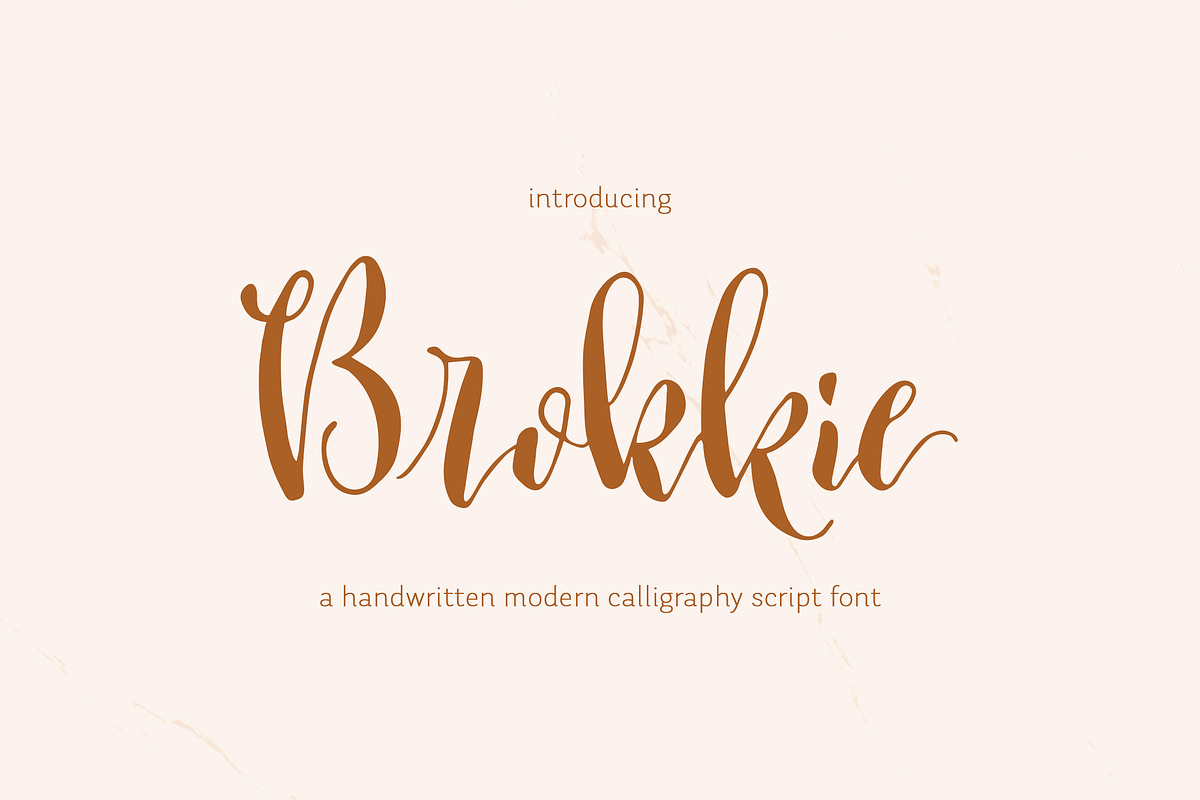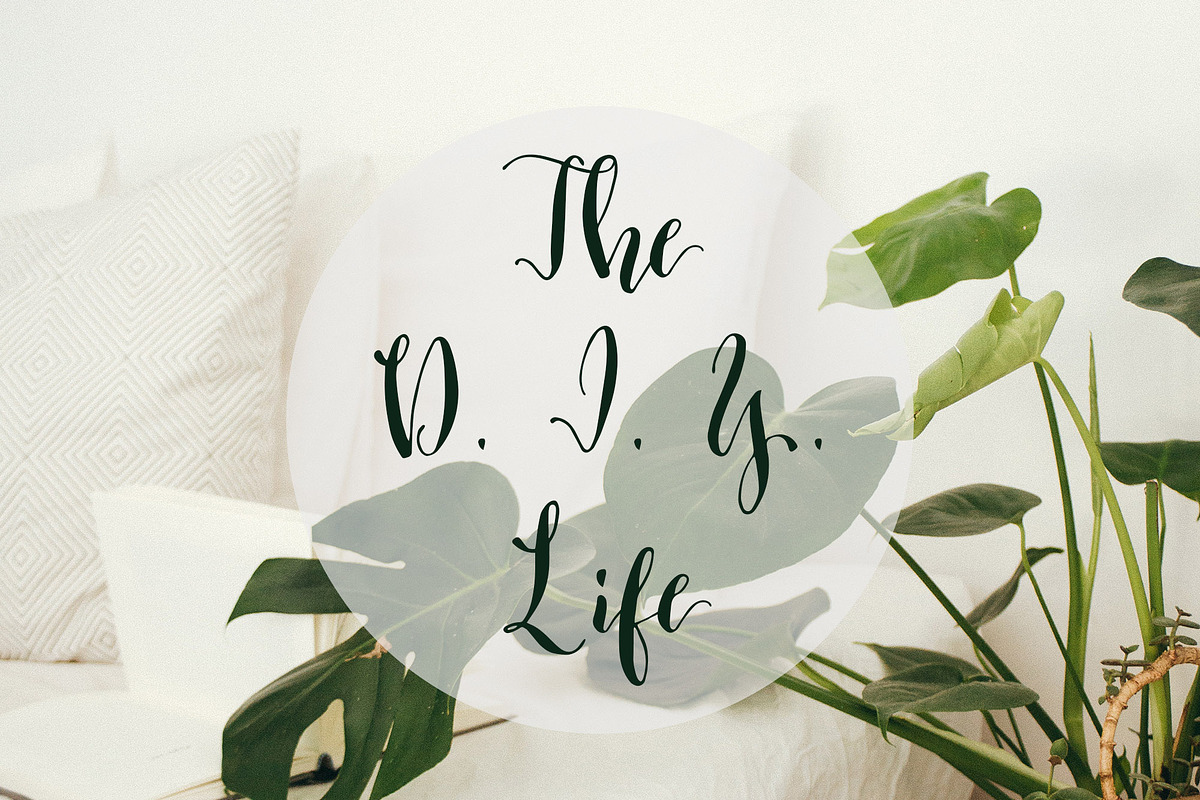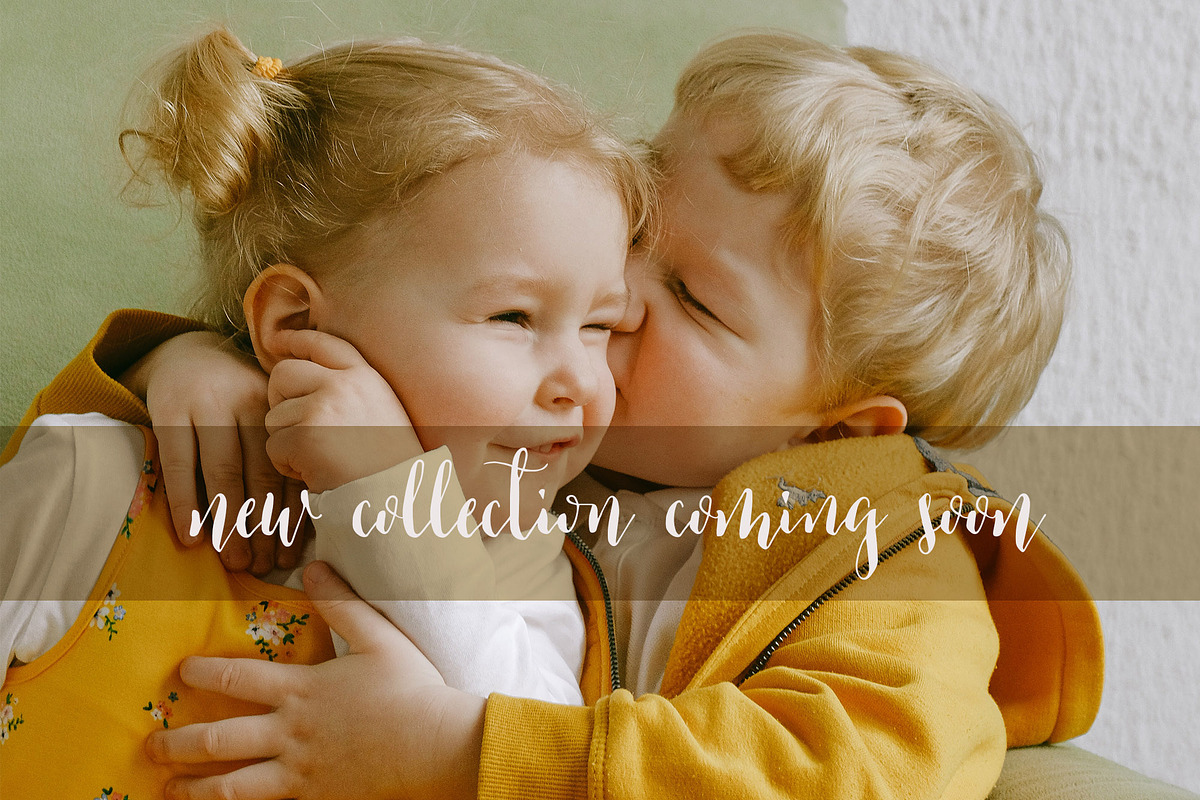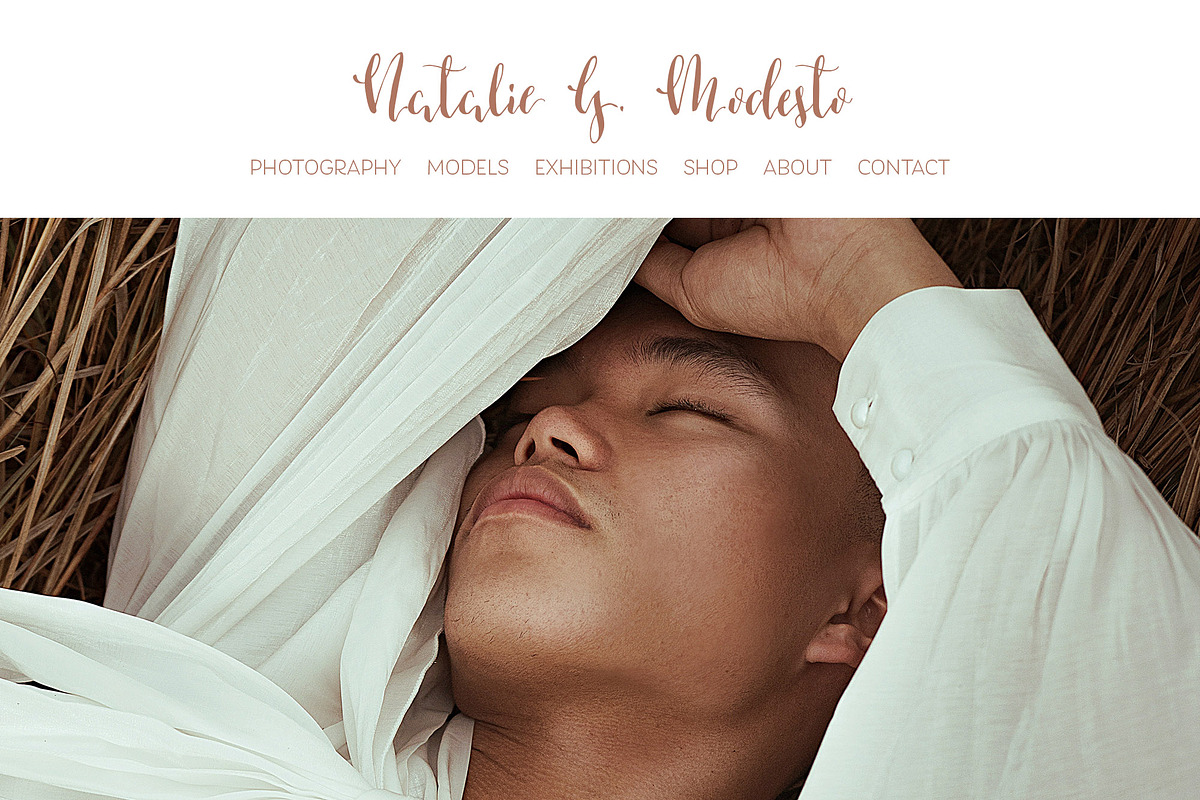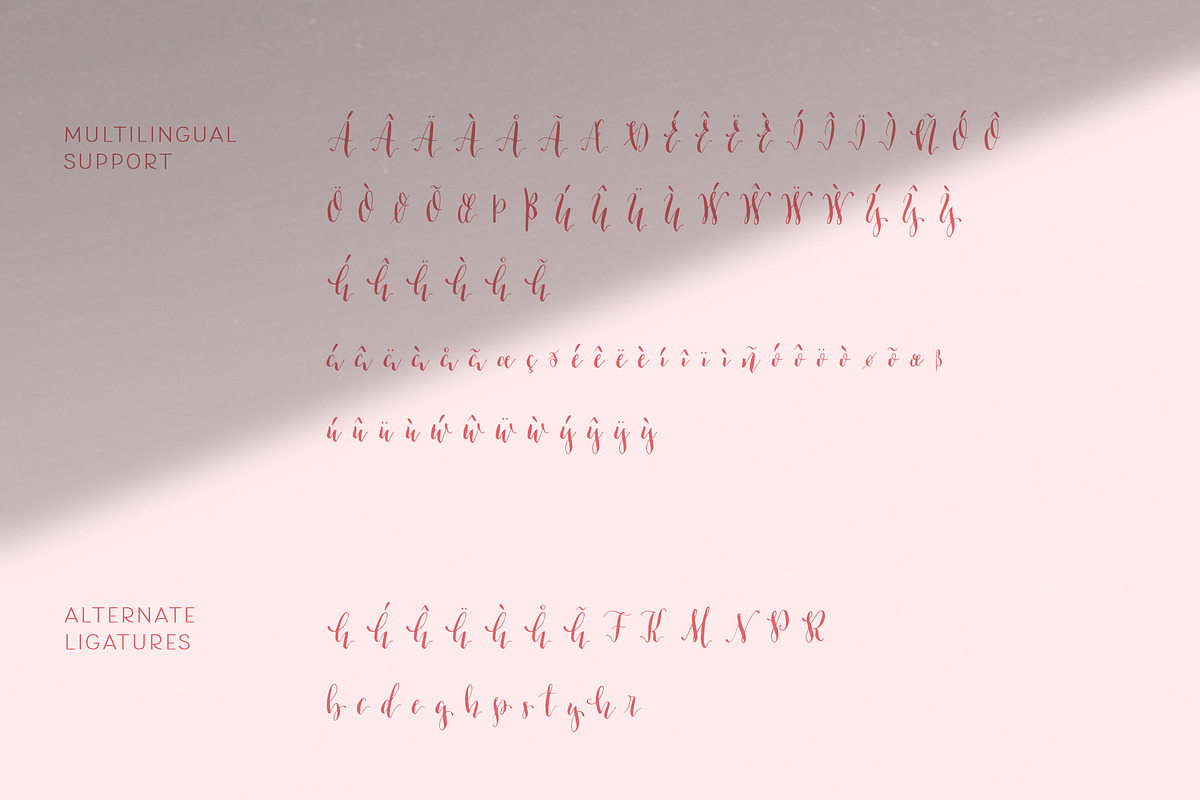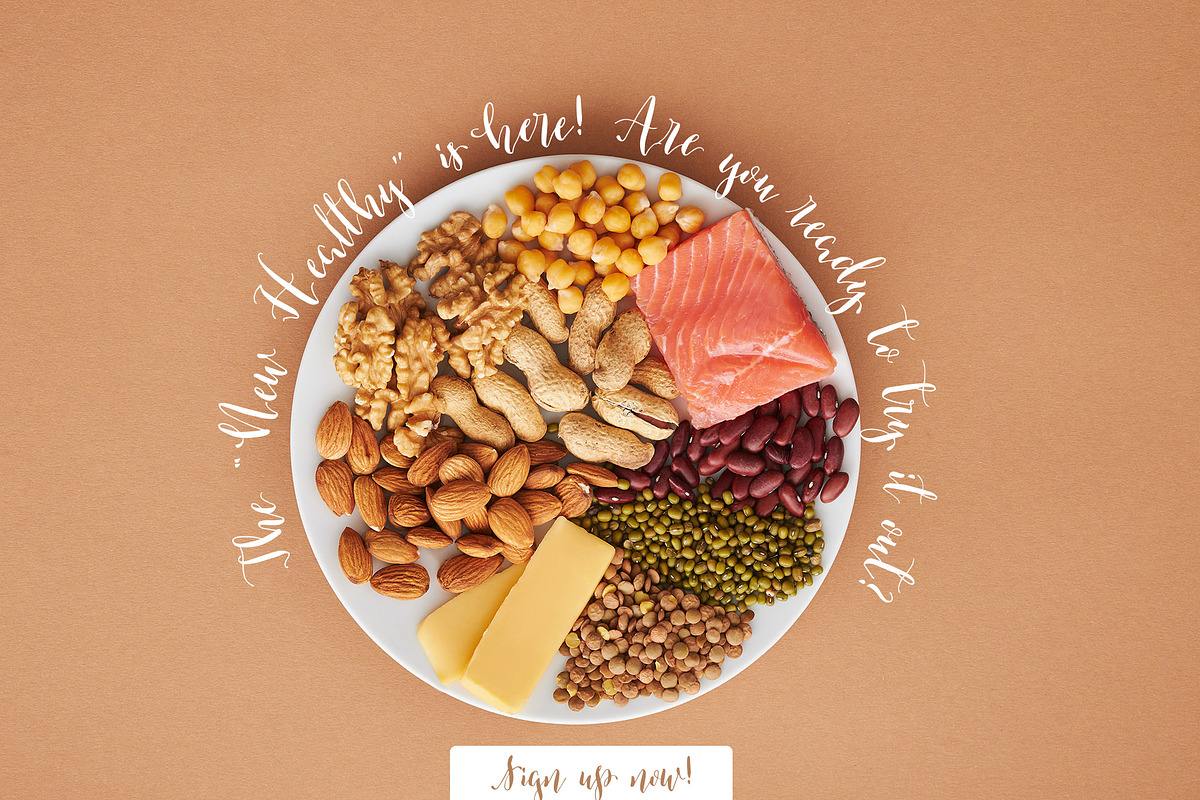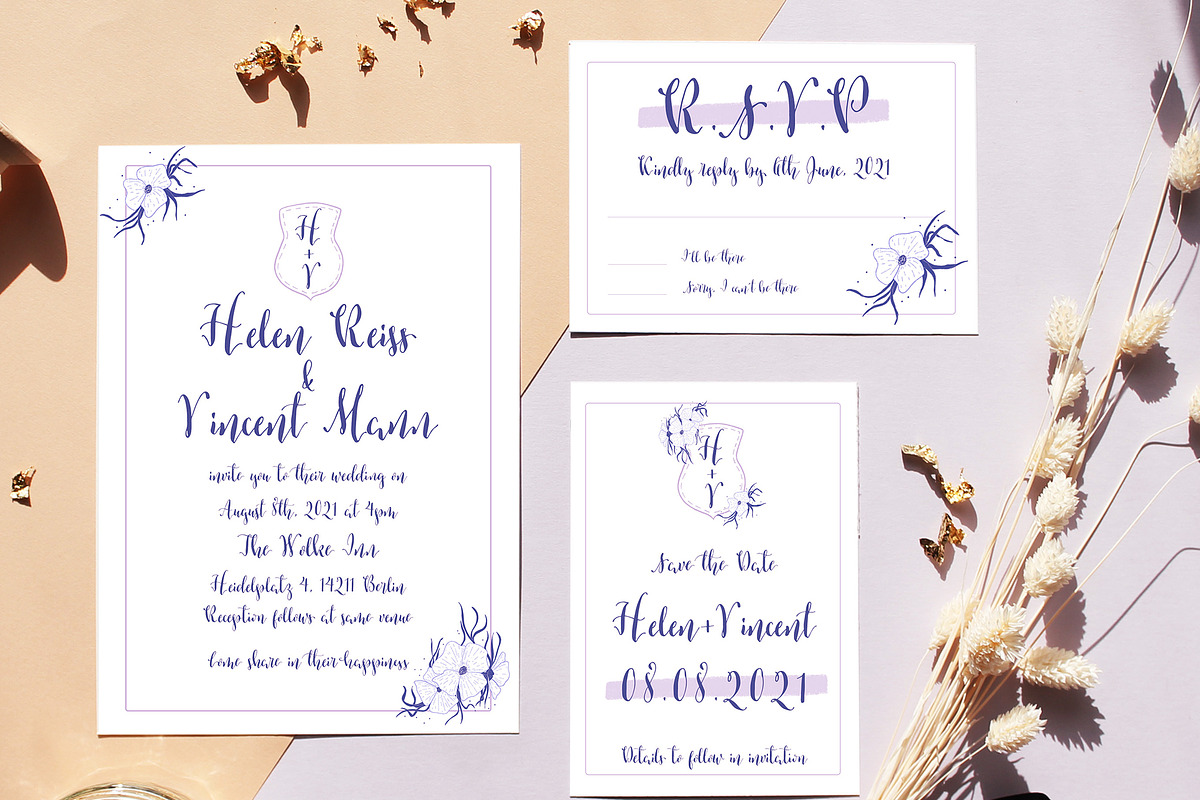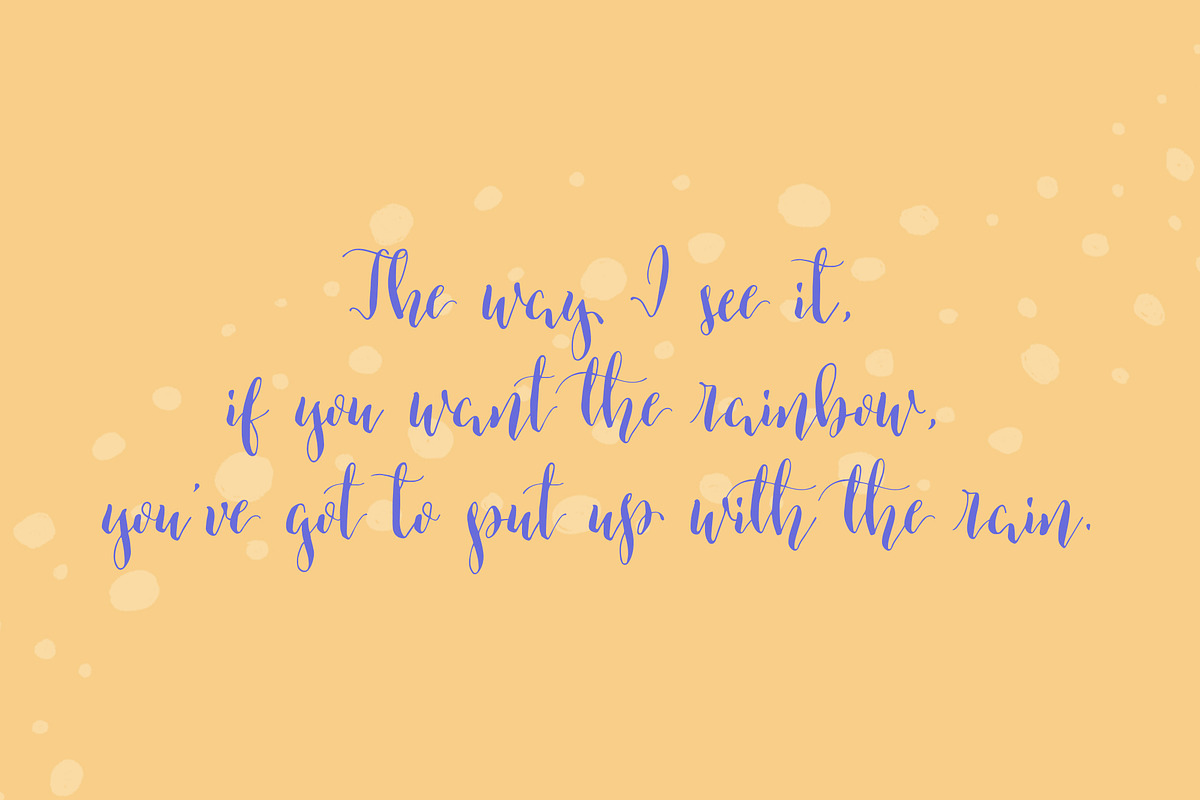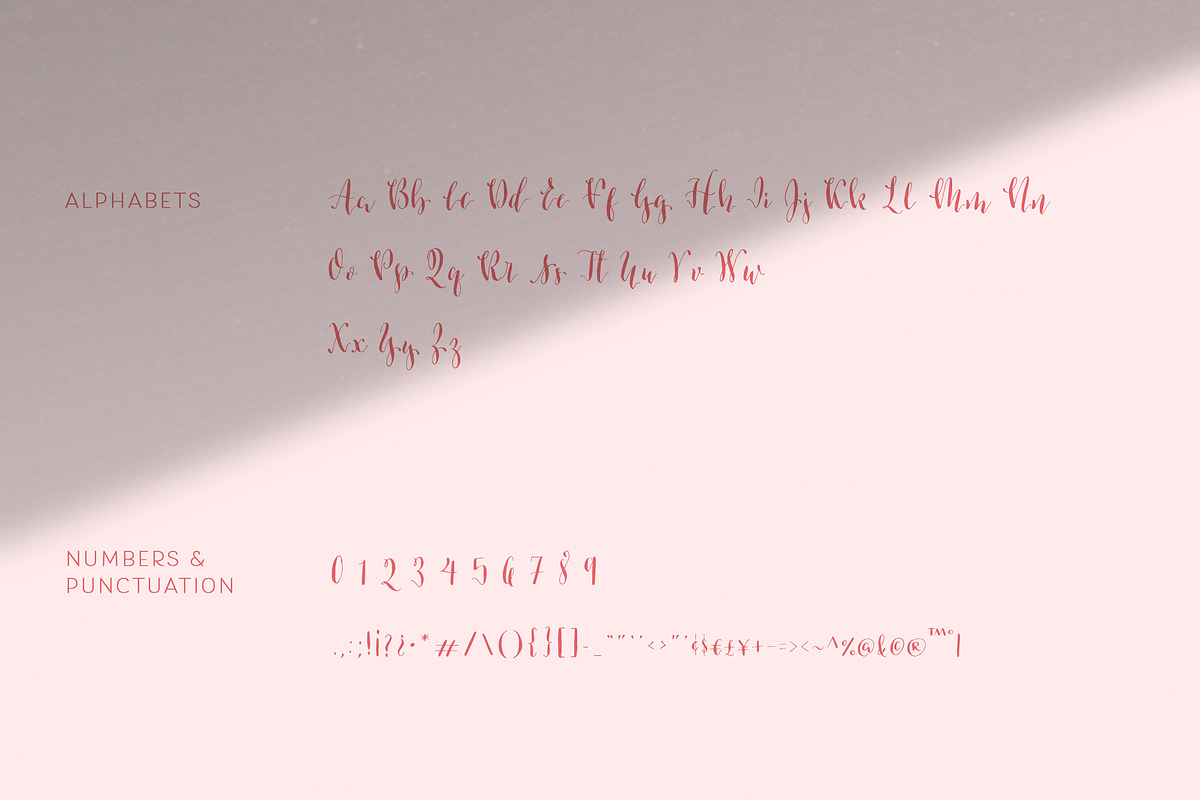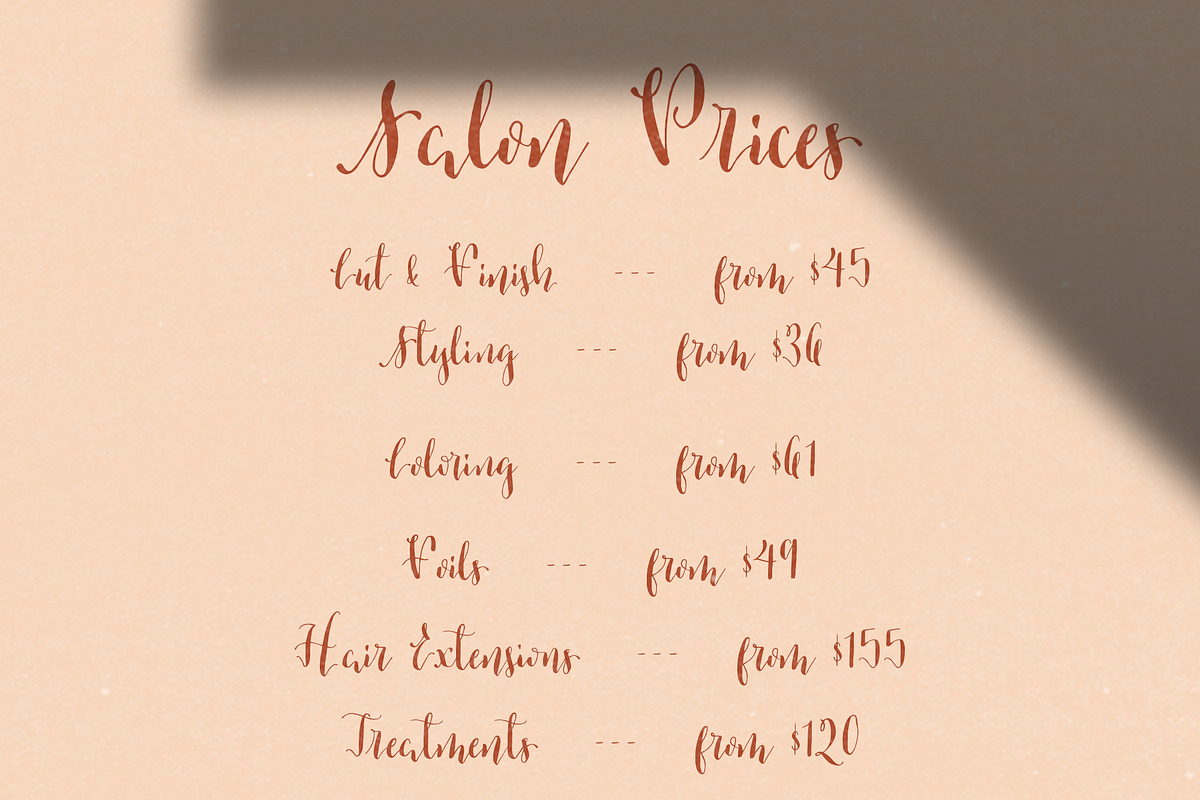
Brokkie | Modern Calligraphy Font
Brokkie is a handwritten calligraphy script font with a modern twist! This font adds a relatable and imperfect side to your designs; which makes it great for logos, branding, blogs, social media, wedding stationery, websites, signs, business cards and more.